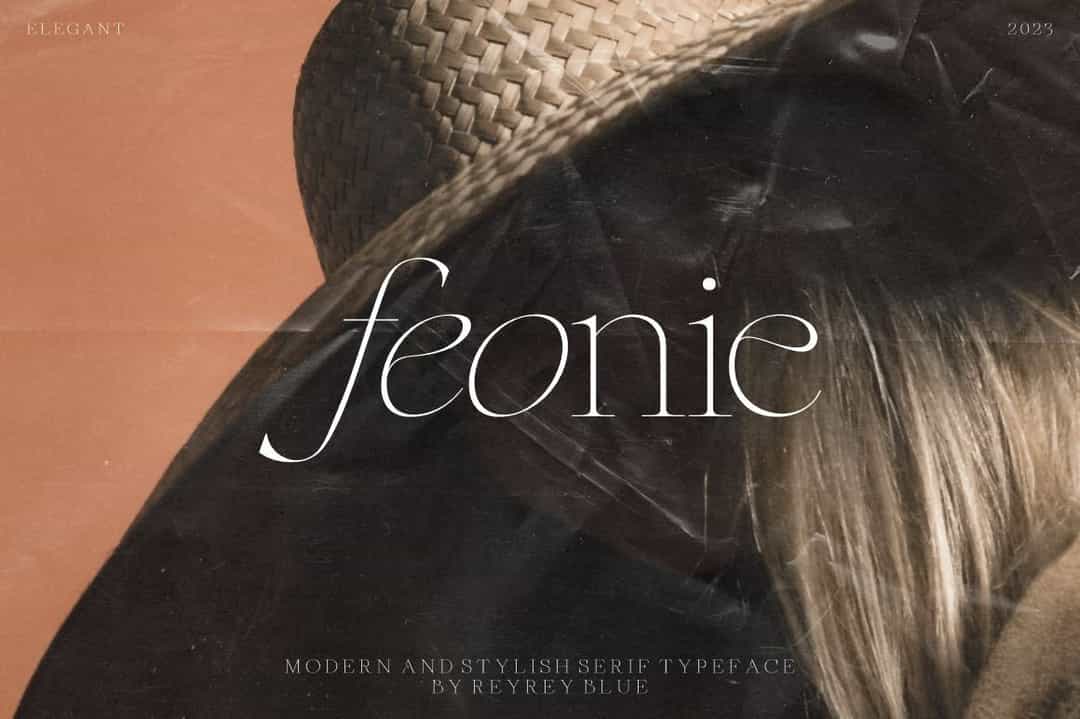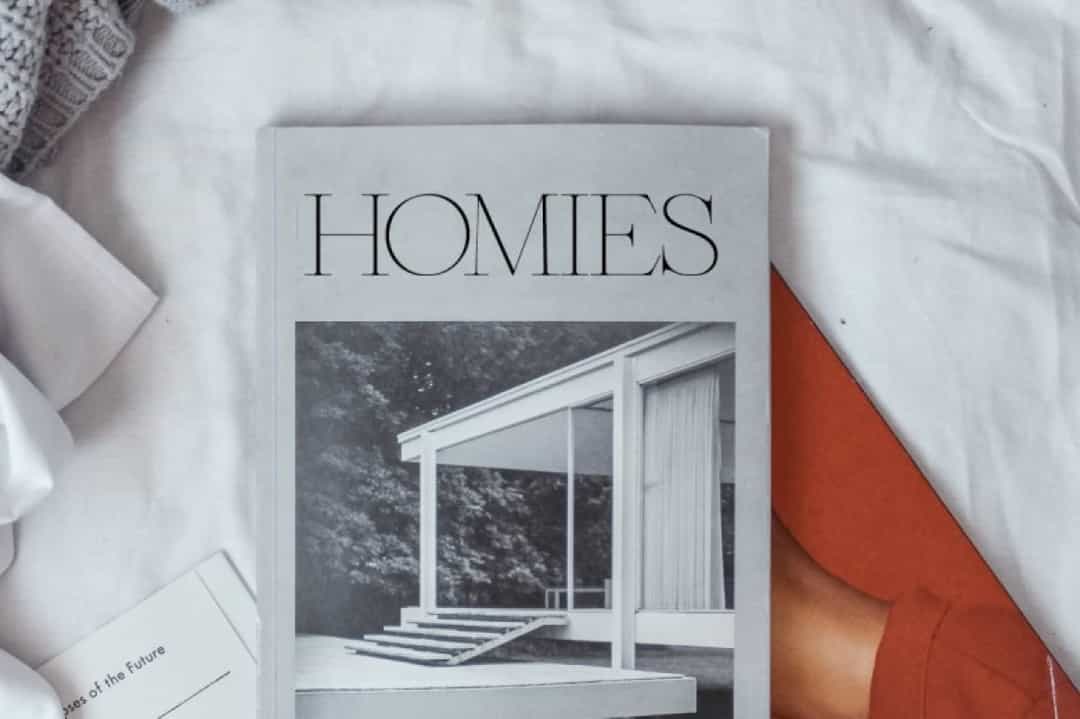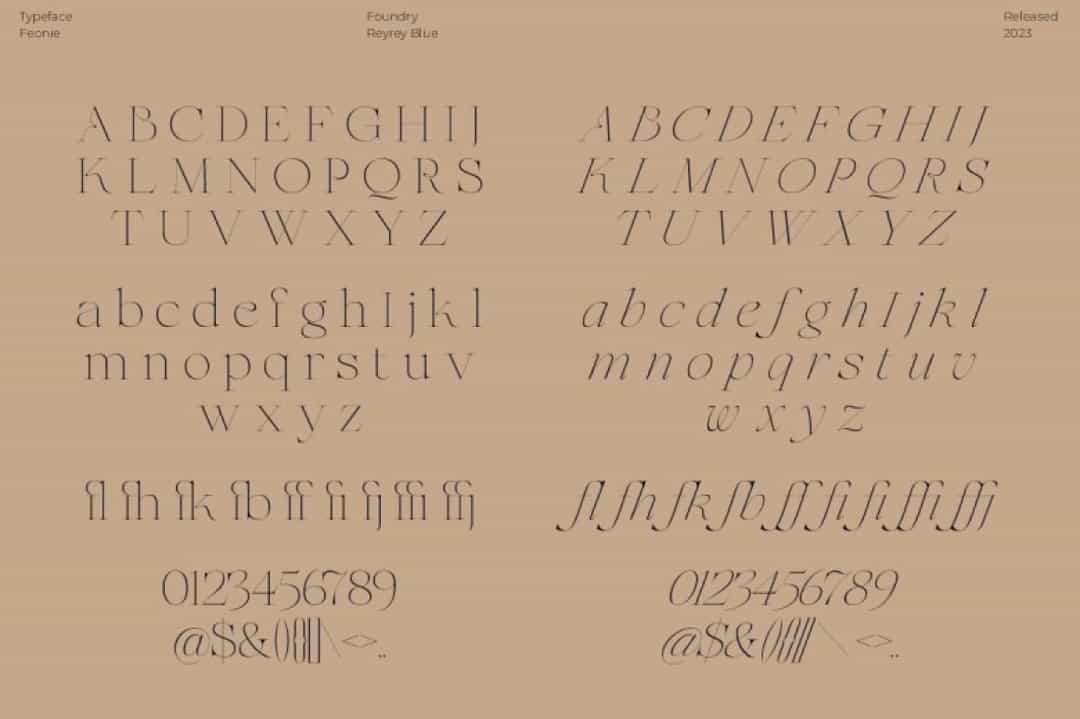
Feonie is an elegant old-fashioned serif font with slightly curled serifs that features two styles – regular and italic – to suit different occasions and designs. Perfectly balanced between soft curves and bold font, Feonie makes an outstanding combination. Offering multilingual support as well, Feonie can make feminine logos and fashion mastheads look their best!